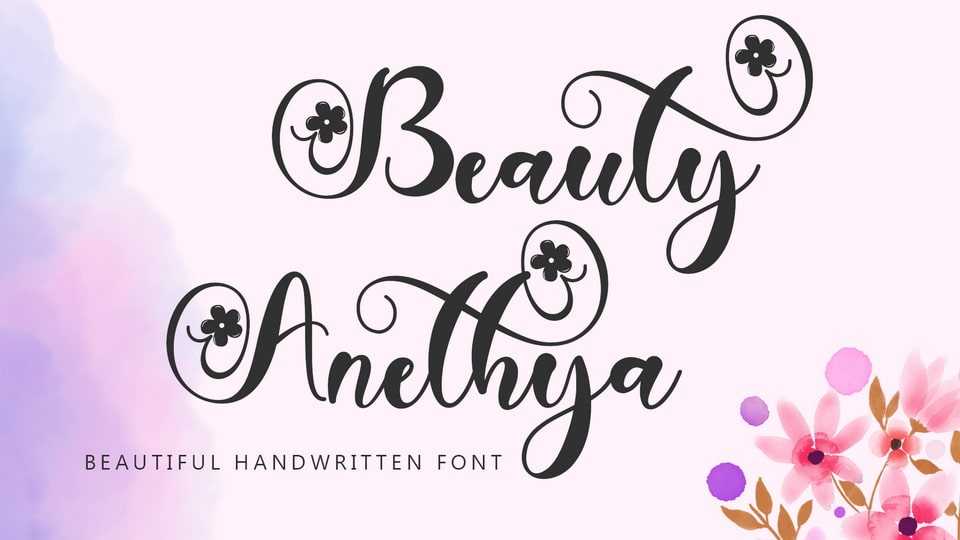
Download Beauty Anethya font, a beautiful and elegant handwritten font. It is very suitable for weddings, business branding, stickers, spring, summer, holidays, invitations, banners, mother’s day and others.